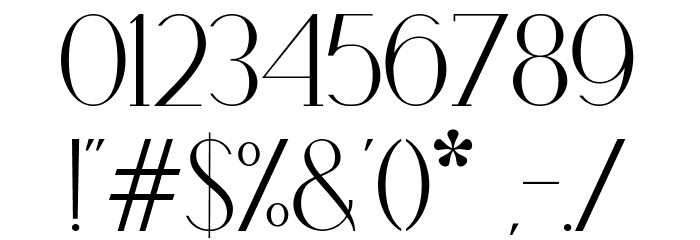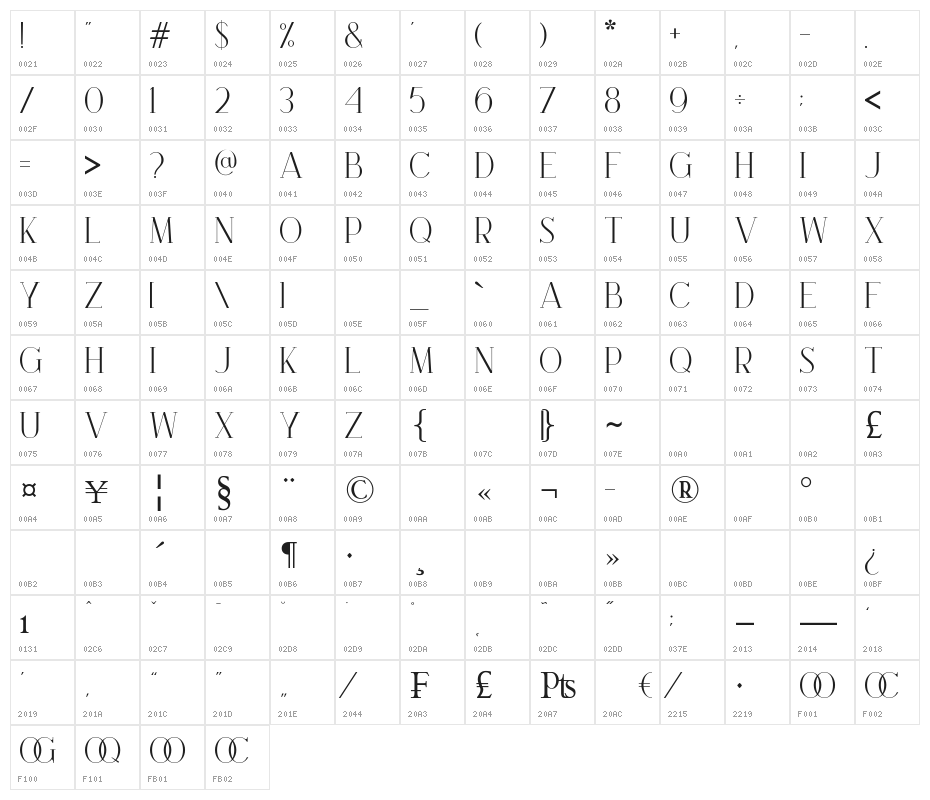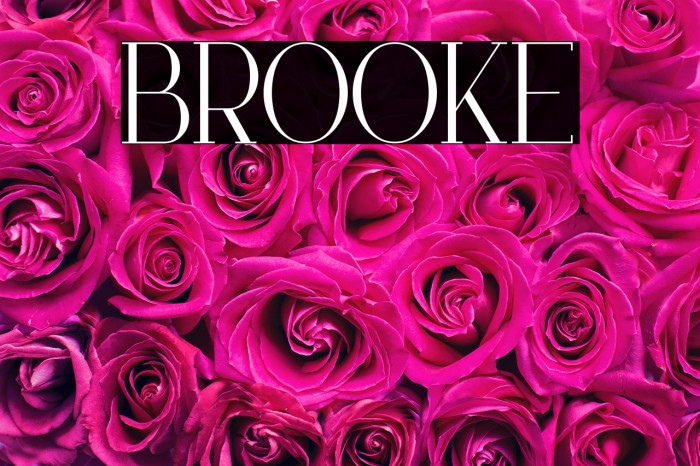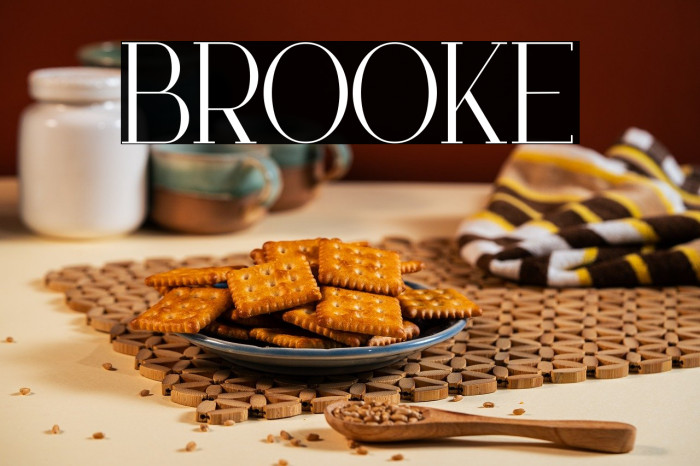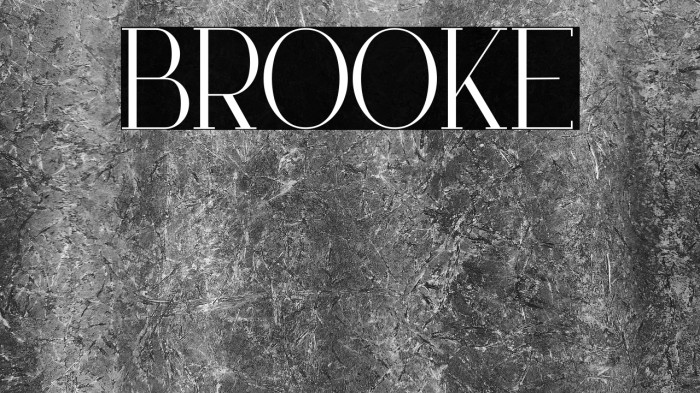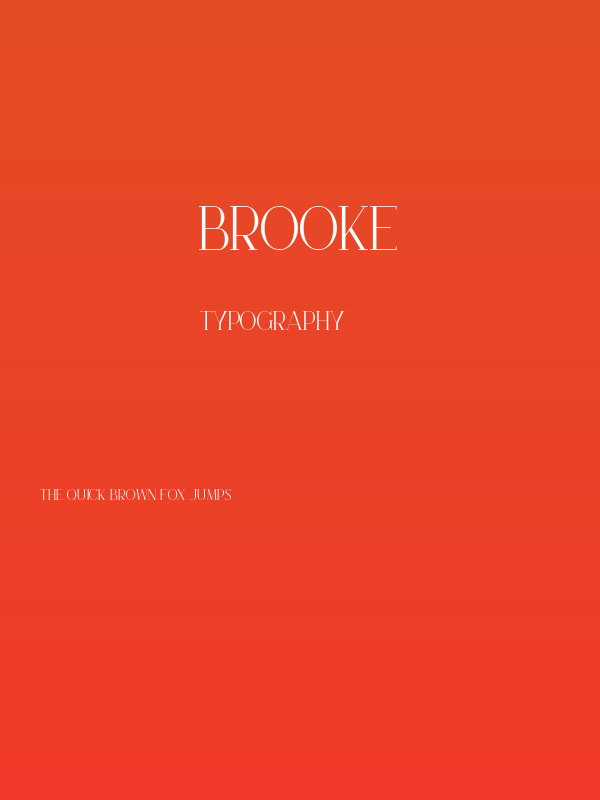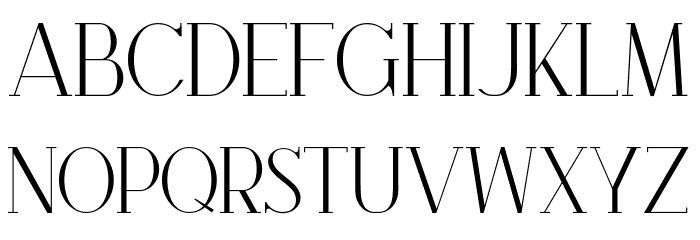
Brooke Font
Brooke Description
This font features a classic serif style with elegant, thin strokes and high contrast between thick and thin lines. The characters are tall and narrow, giving a sophisticated and refined appearance. The uppercase letters are particularly elongated, while the lowercase letters maintain a consistent height. The numerals are clear and distinct, matching the overall aesthetic of the alphabet. Special characters are designed with the same attention to detail, ensuring a cohesive look across all glyphs. This font is ideal for projects that require a touch of elegance and formality.